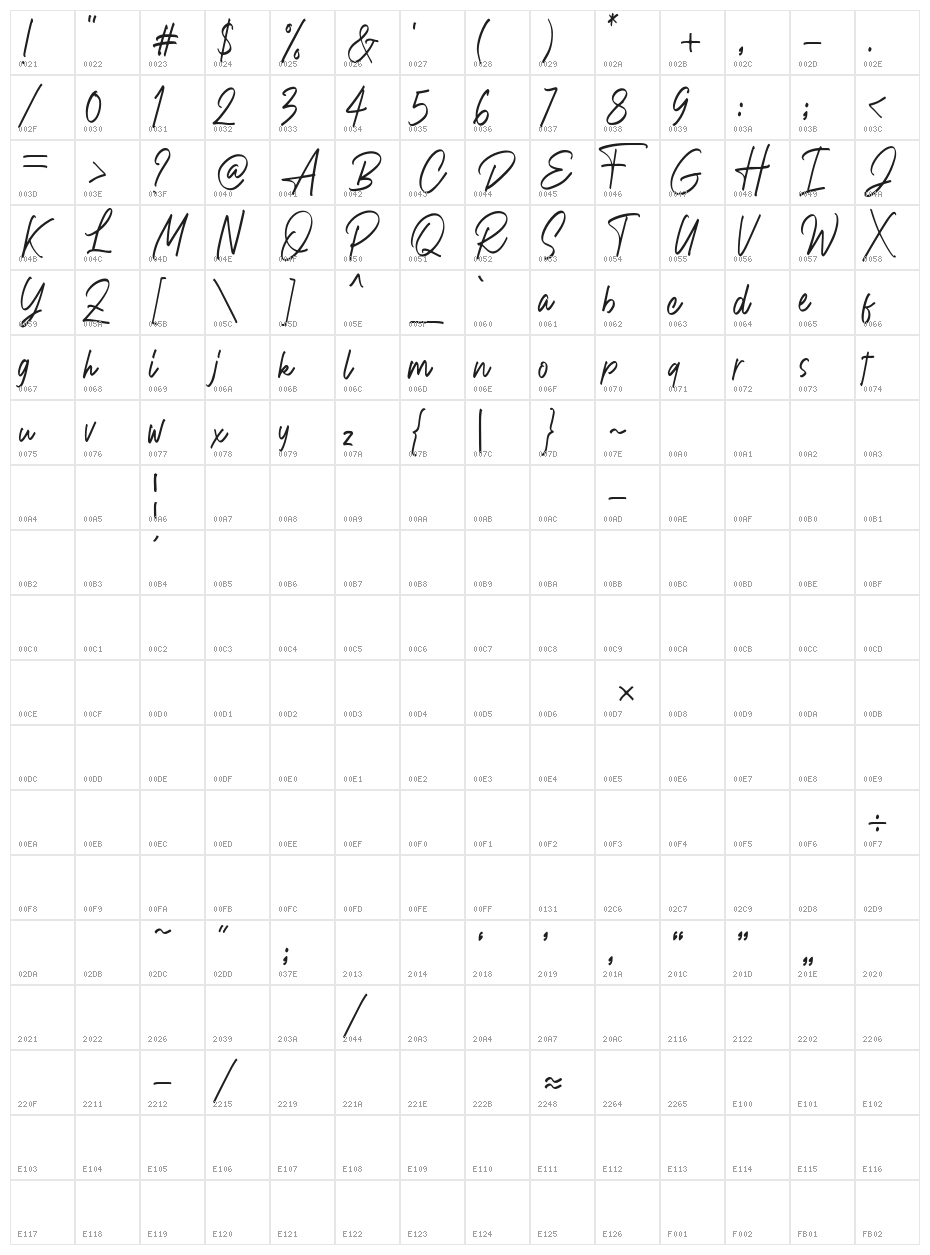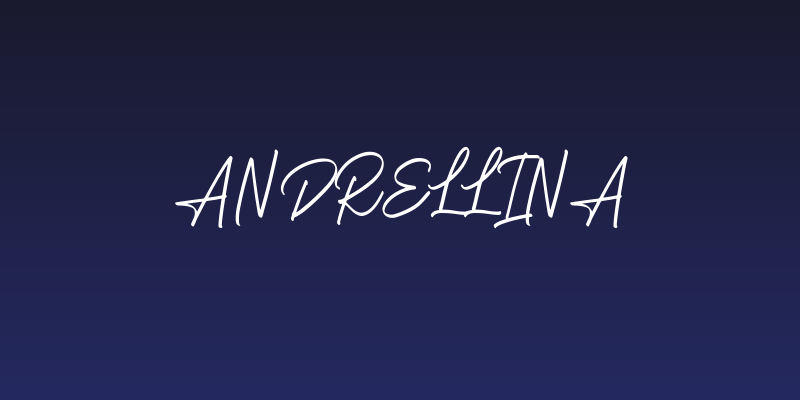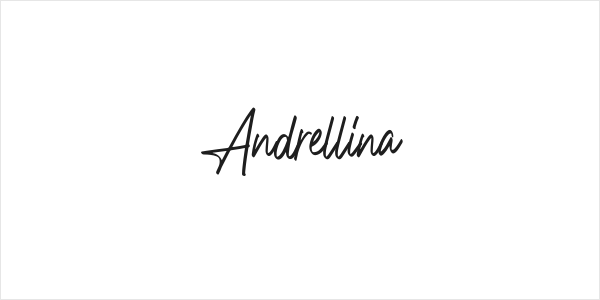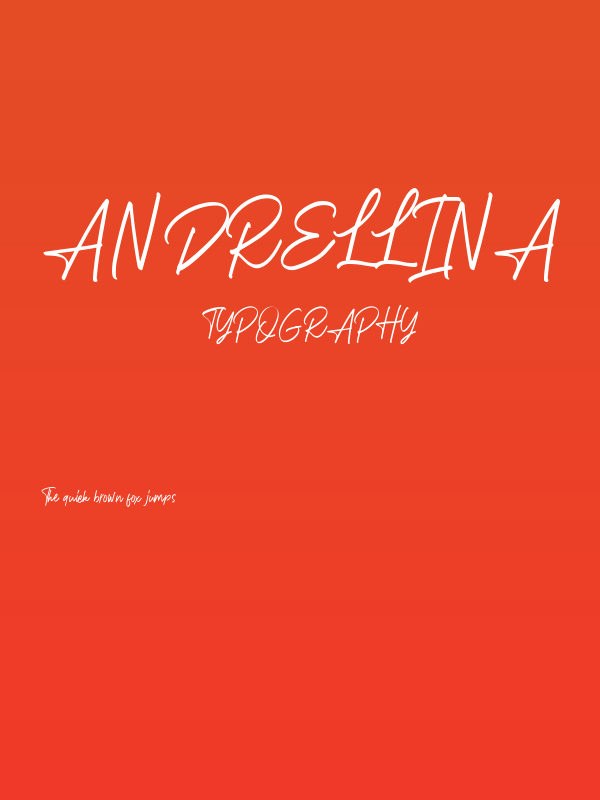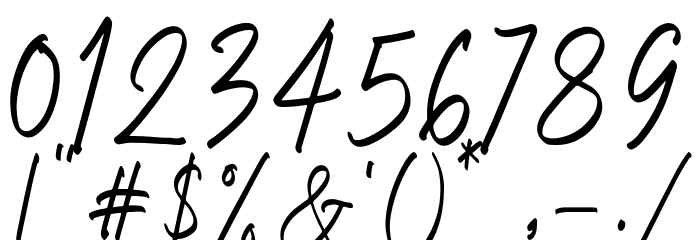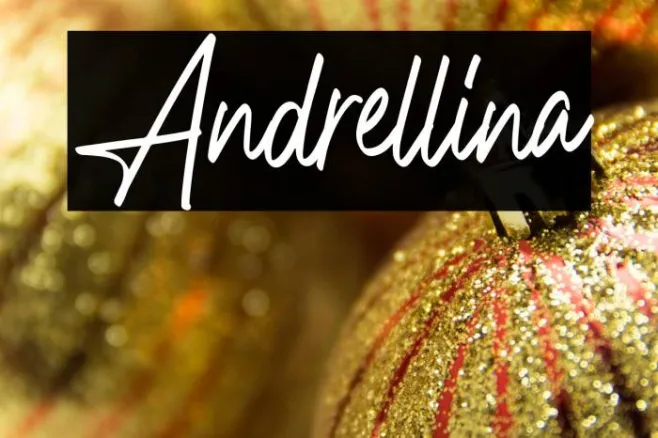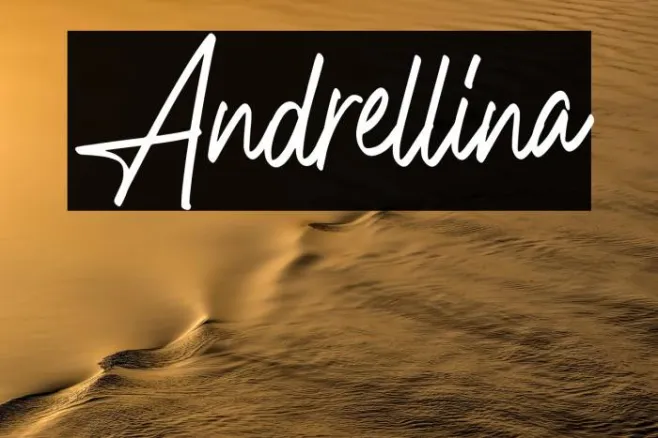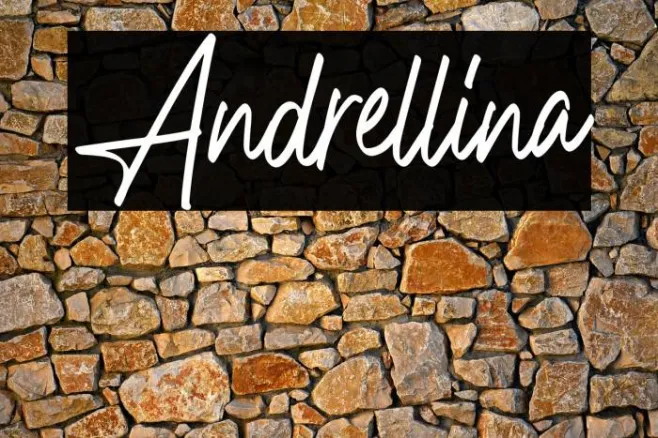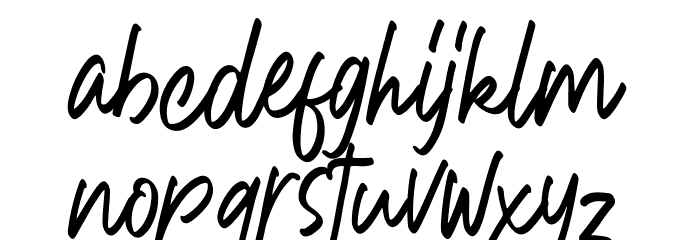
Andrellina Font
Andrellina Description
This font features a dynamic and fluid handwritten style, characterized by its elegant and flowing letterforms. The uppercase letters exhibit a graceful slant, while the lowercase letters maintain a consistent rhythm, enhancing readability. The numerals are clear and distinct, complementing the overall aesthetic. Special characters are thoughtfully designed, adding versatility to the font. The strokes vary in thickness, providing a natural and authentic handwritten feel. This font is ideal for projects that require a personal touch, such as invitations, greeting cards, and branding materials.